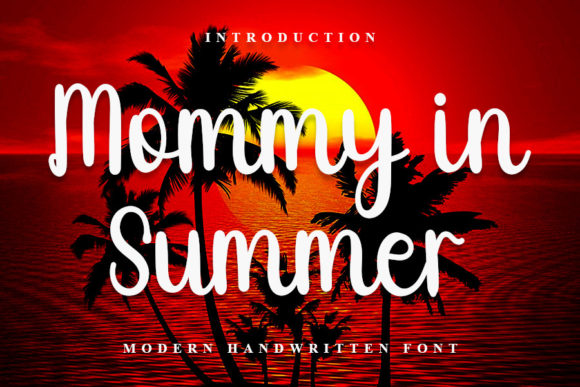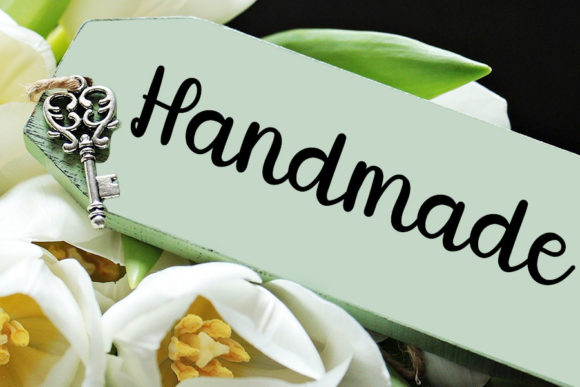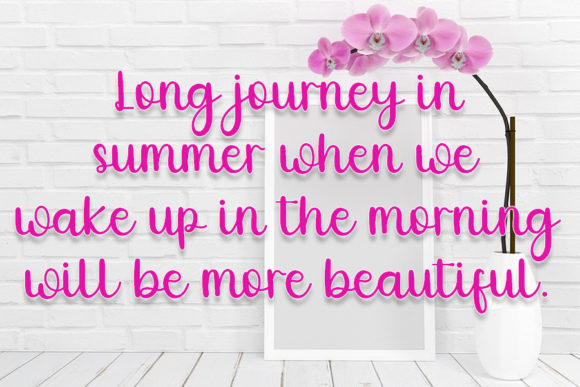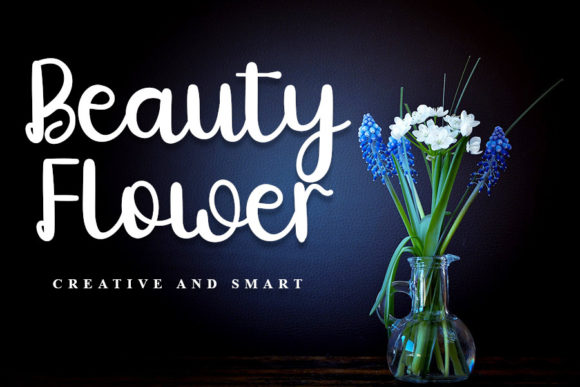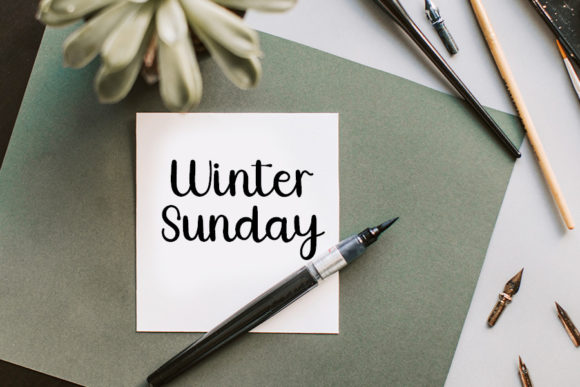
Mommy in Summer Font
About Mommy in Summer Font
Mommy in Summer is a lovely script font featuring charming, playful characters that seem to dance along the baseline. Add this font to your most creative ideas, and notice how it makes them stand out!